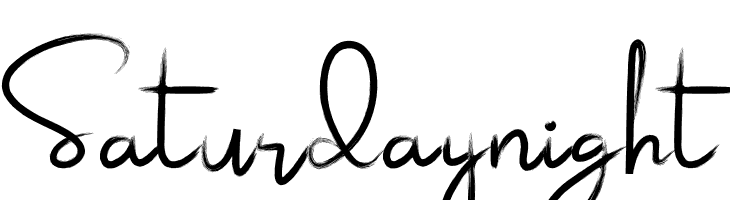
A flowing, cursive font with elegant, interconnected letters.
A playful, hand-drawn font with tall, narrow letters and a whimsical style.
A playful, hand-drawn font with quirky, irregular shapes.
A dynamic, expressive handwritten font with fluid, sweeping strokes.
A dynamic, handwritten font with bold, fluid strokes and a playful, informal style.
A bold, cursive script with playful, interconnected letters and elegant swashes.